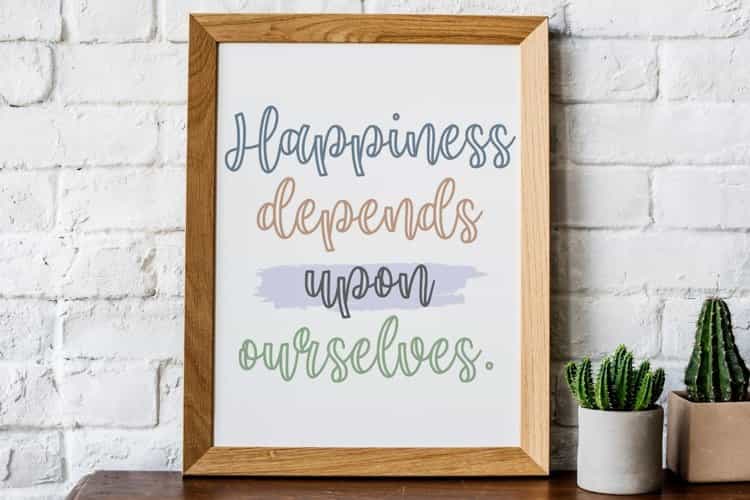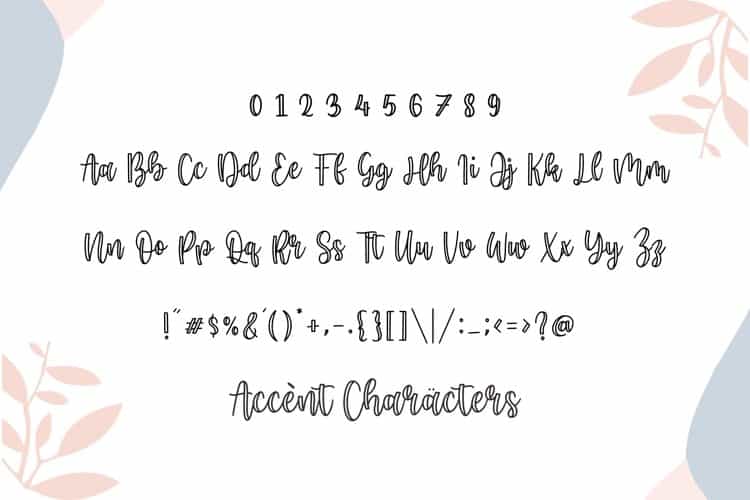
Minoline is a charming modern handwritten script font. It is ideal for packaging of products for branding, magazines weddings, social media or to simply write words over the background. This font comes with TTF, Minoline also multilingual support.